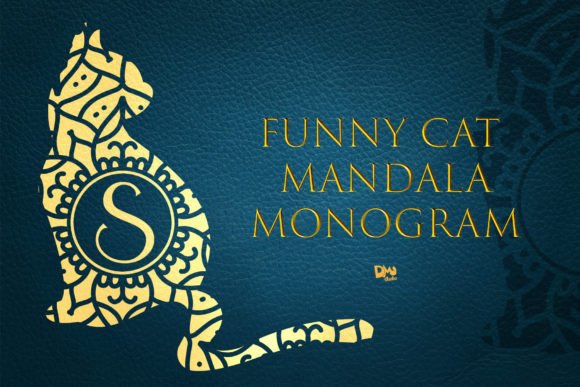
Funny Cat Mandala Monogram Font: The Purrfect Choice for Cat Lovers
Are you a cat lover looking for a unique and playful font to add some personality to your creative projects? Look no further than the Funny Cat Mandala Monogram Font! This delightful decorative typeface is specifically designed for cat enthusiasts, and it’s sure to bring a smile to your face. In this article, we’ll explore the features and benefits of the Funny Cat Mandala Monogram Font, and show you how it can elevate your designs to the next level.
What Makes Funny Cat Mandala Monogram Font So Special?
The Funny Cat Mandala Monogram Font is a one-of-a-kind typeface that combines the elegance of mandalas with the playfulness of cats. Each letter is carefully crafted to feature adorable cat illustrations, making it the perfect choice for any project dedicated to kittens. Whether you’re designing a logo, a greeting card, or a social media post, this font is sure to add a touch of whimsy and fun.
- Unique and Playful Design: The Funny Cat Mandala Monogram Font features a distinctive and eye-catching design that’s sure to stand out from the crowd.
- Adorable Cat Illustrations: Each letter is carefully crafted to feature cute and playful cat illustrations that will delight cat lovers of all ages.
- Mandalas and Patterns: The font incorporates intricate mandalas and patterns, adding an extra layer of visual interest and elegance.
- Multilingual Support: The Funny Cat Mandala Monogram Font supports multiple languages, making it a great choice for global projects.
How to Use Funny Cat Mandala Monogram Font in Your Creative Projects
The Funny Cat Mandala Monogram Font is an incredibly versatile typeface that can be used in a wide range of creative projects. Here are some ideas to get you started:
- Cat-Themed Merchandise: Create adorable cat-themed merchandise, such as t-shirts, mugs, and tote bags, using the Funny Cat Mandala Monogram Font.
- Social Media Graphics: Add a touch of personality to your social media posts and graphics with this playful font.
- Logos and Branding: Use the Funny Cat Mandala Monogram Font to create a unique and memorable logo for your cat-related business or organization.
- Greeting Cards and Invitations: Create custom greeting cards and invitations for cat lovers, featuring the Funny Cat Mandala Monogram Font.
Tips for Using Funny Cat Mandala Monogram Font
To get the most out of the Funny Cat Mandala Monogram Font, here are some tips to keep in mind:
- Pair with a Simple Font: Pair the Funny Cat Mandala Monogram Font with a simple font to create visual contrast and make your design more readable.
- Use in Moderation: While the Funny Cat Mandala Monogram Font is playful and fun, it’s best to use it in moderation to avoid overwhelming your design.
- Experiment with Colors: The Funny Cat Mandala Monogram Font looks great in a variety of colors, so don’t be afraid to experiment and find the perfect hue for your design.
In conclusion, the Funny Cat Mandala Monogram Font is a unique and playful typeface that’s perfect for cat lovers and designers alike. With its adorable cat illustrations, intricate mandalas, and multilingual support, this font is sure to add a touch of personality to any creative project. Whether you’re designing a logo, a greeting card, or a social media post, the Funny Cat Mandala Monogram Font is the purrfect choice.